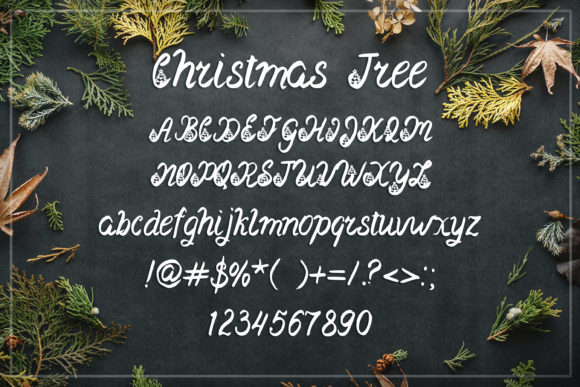
Introduction to Christmas Tree Font
Christmas Tree is a delicate and elegant handwritten font.
Its distinct and well rounded letters make this font a masterpiece Fall in love with its incredibly versatile style and use it to create spectacular designs.